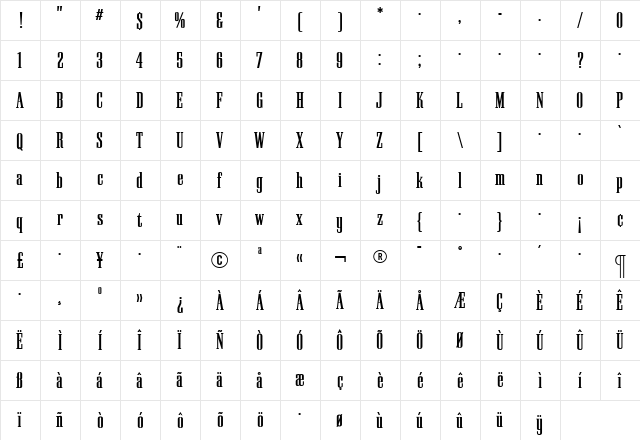
PallMallBold Roman
Design Context for PallMallBold Typeface
PallMallBold takes a measured approach to typography — its balanced proportions and neutral character make it a reliable workhorse for both digital and print work. The heavy weight commands attention and anchors typographic hierarchies.